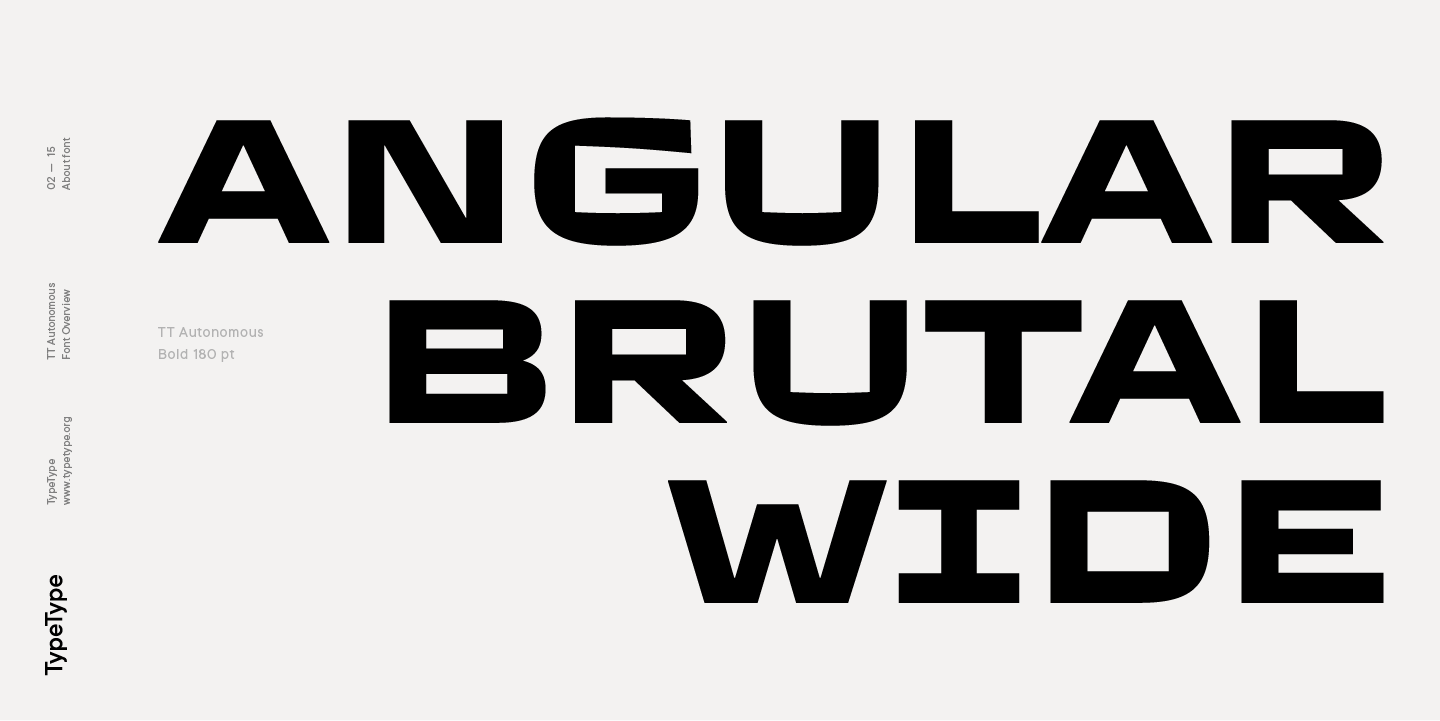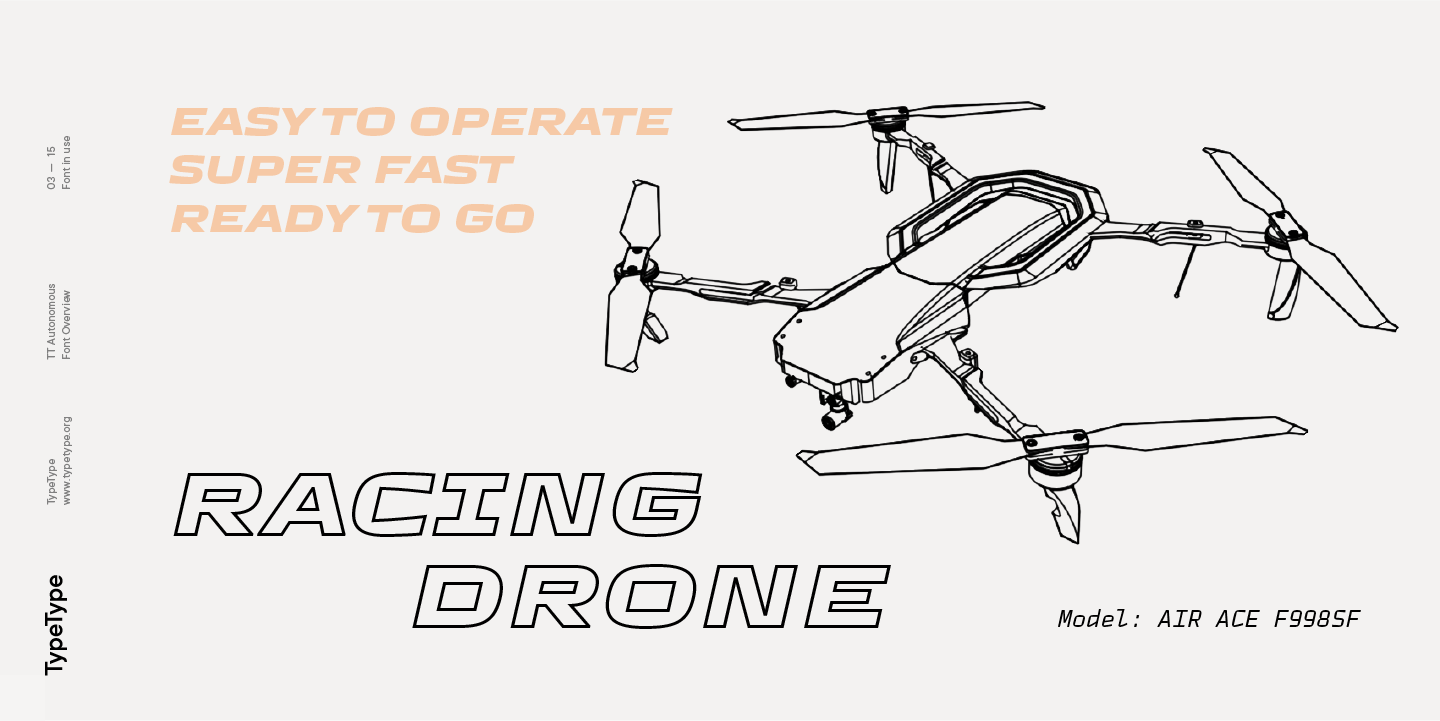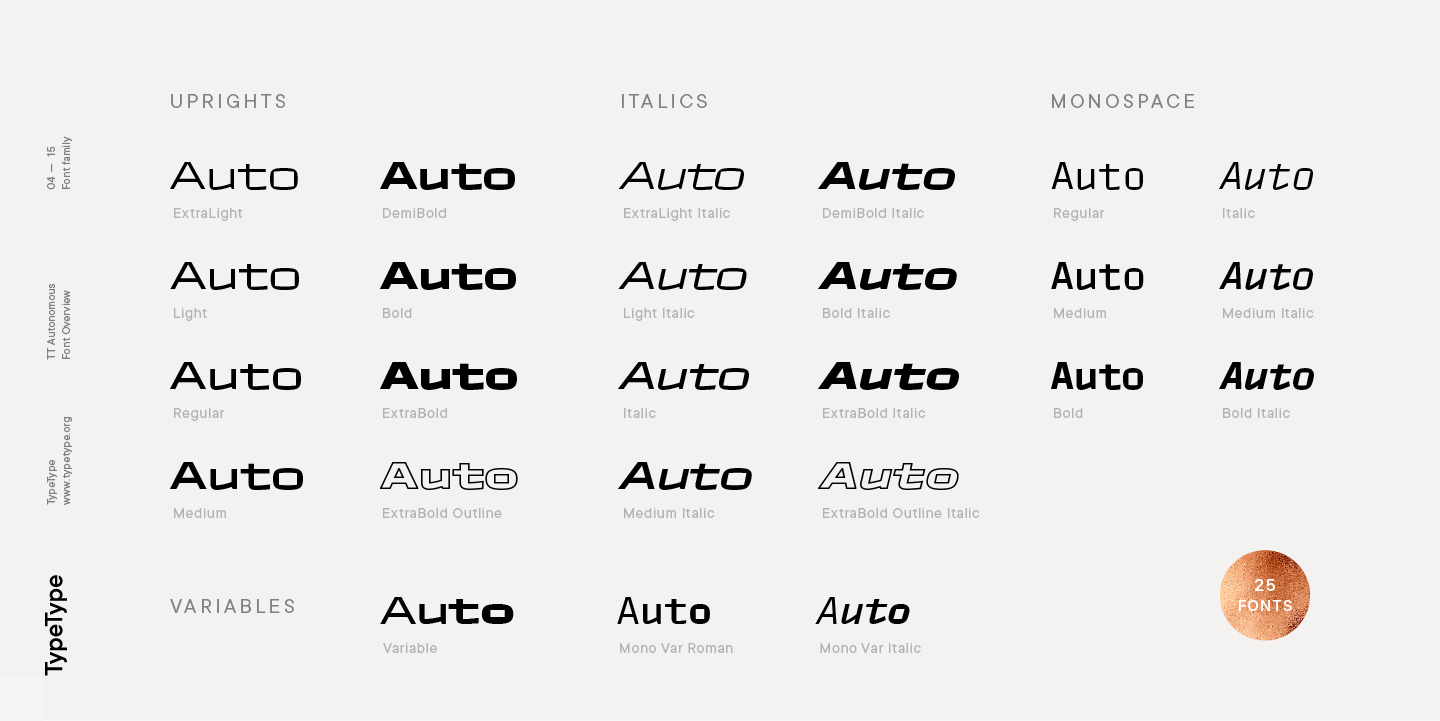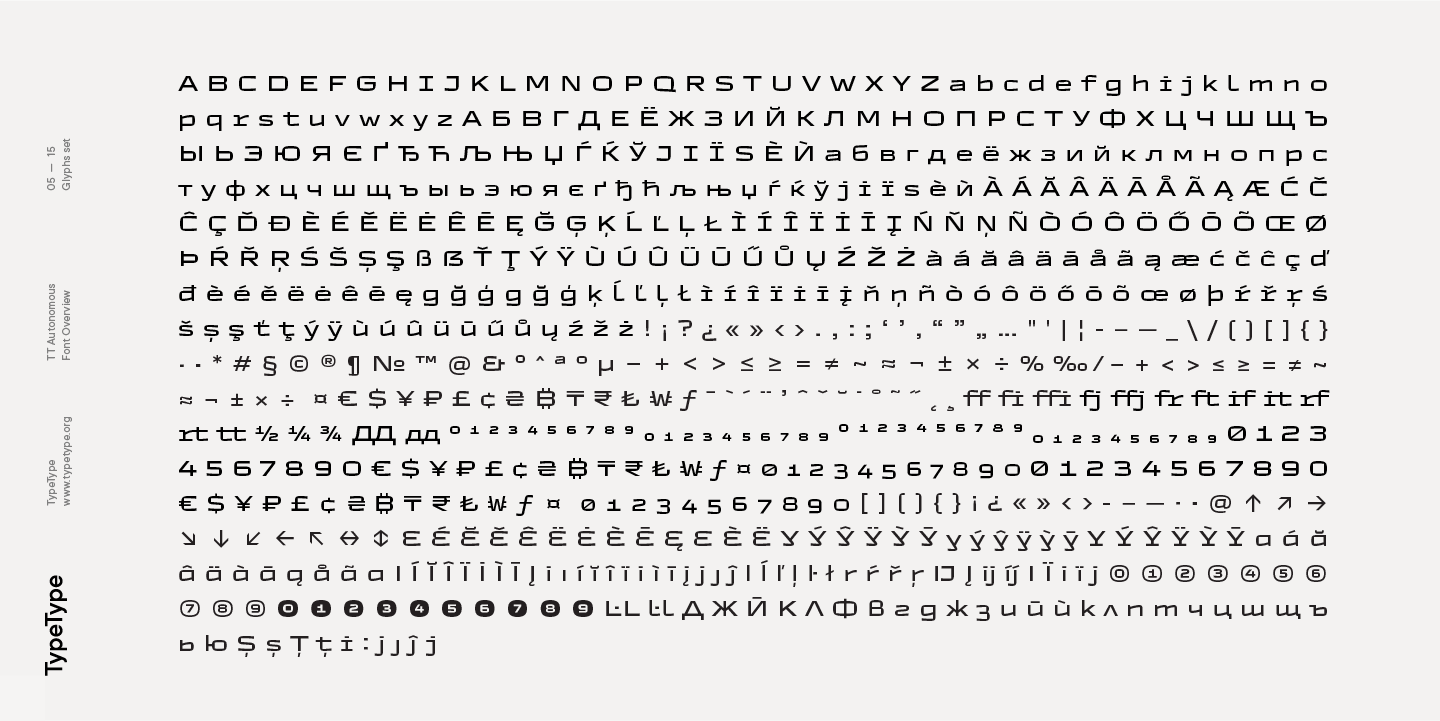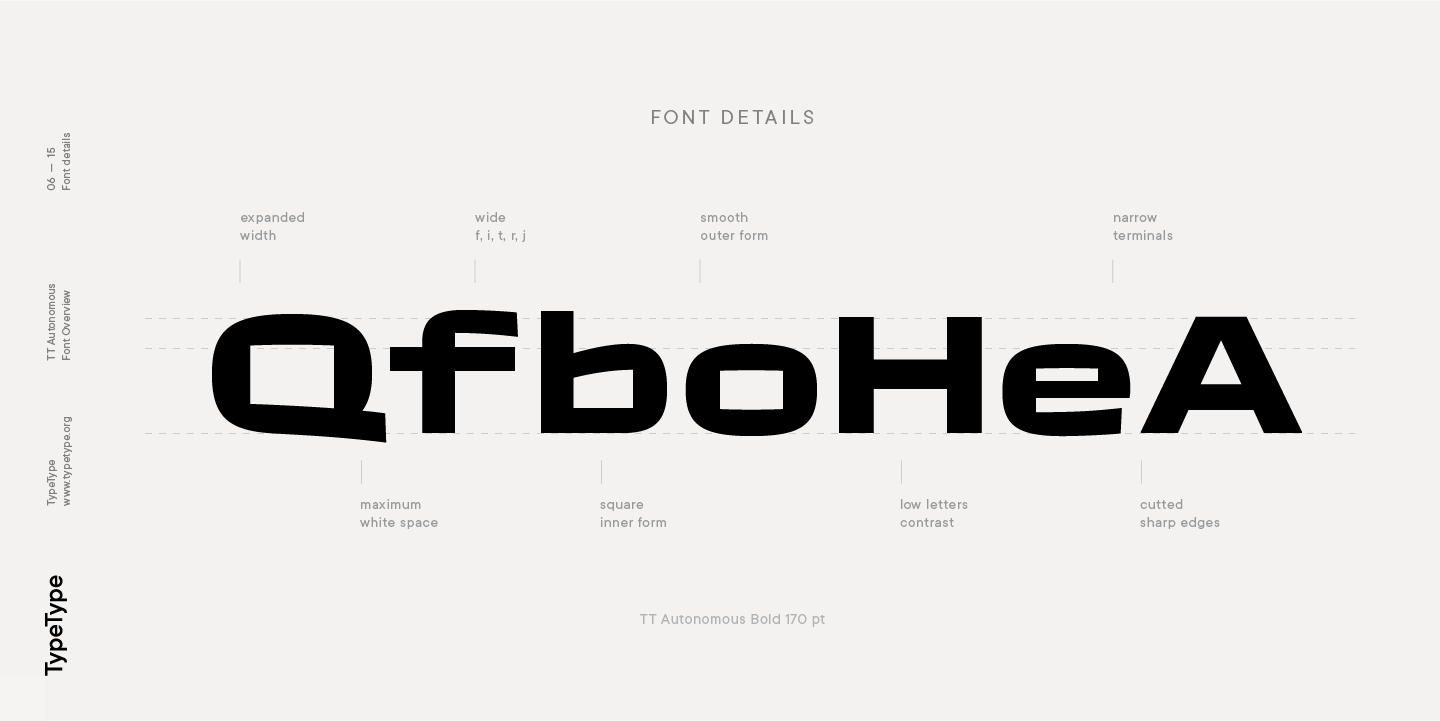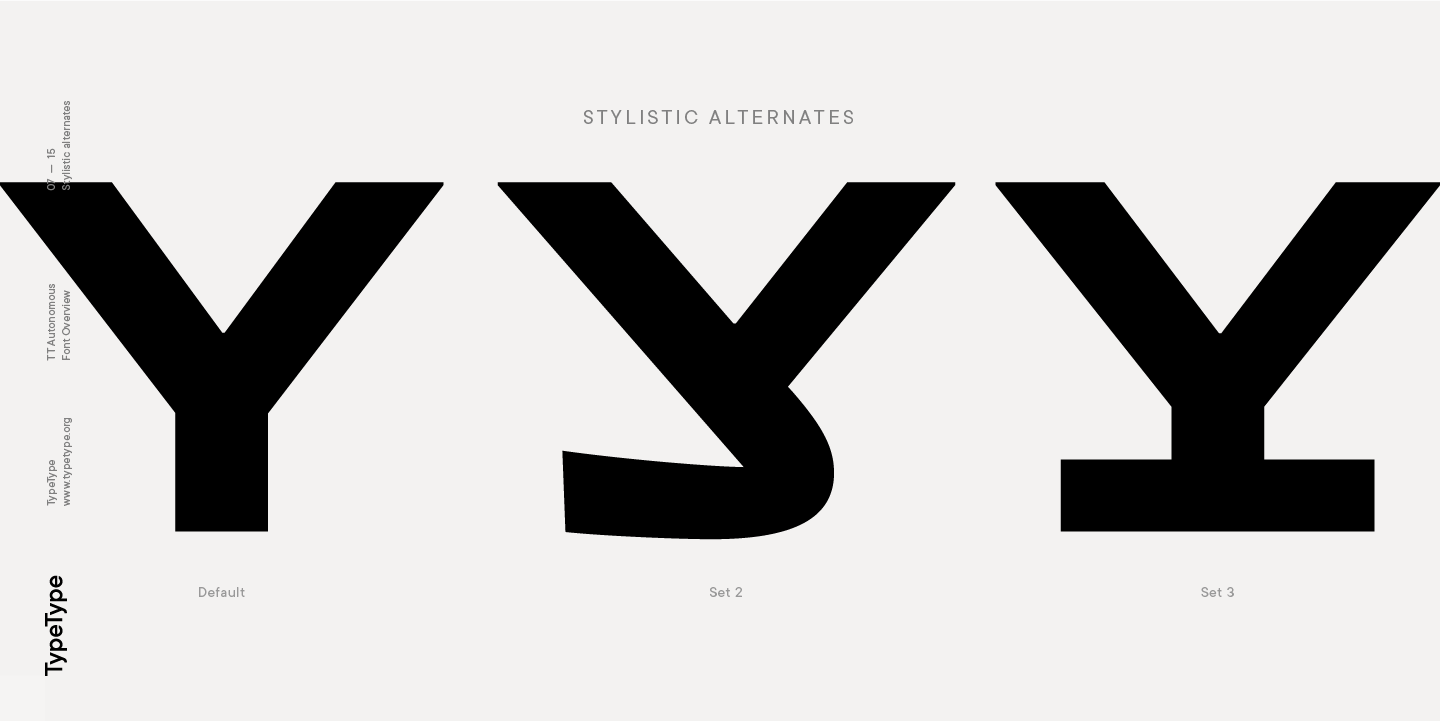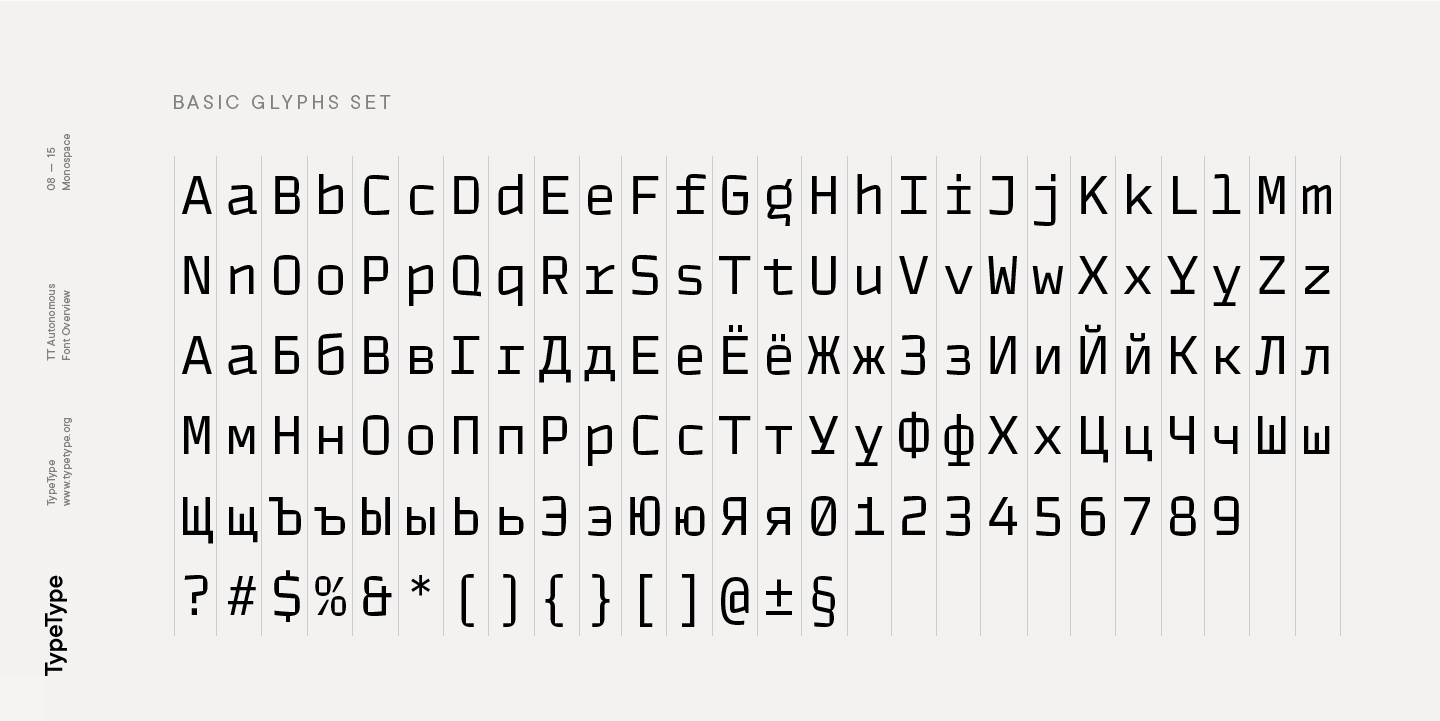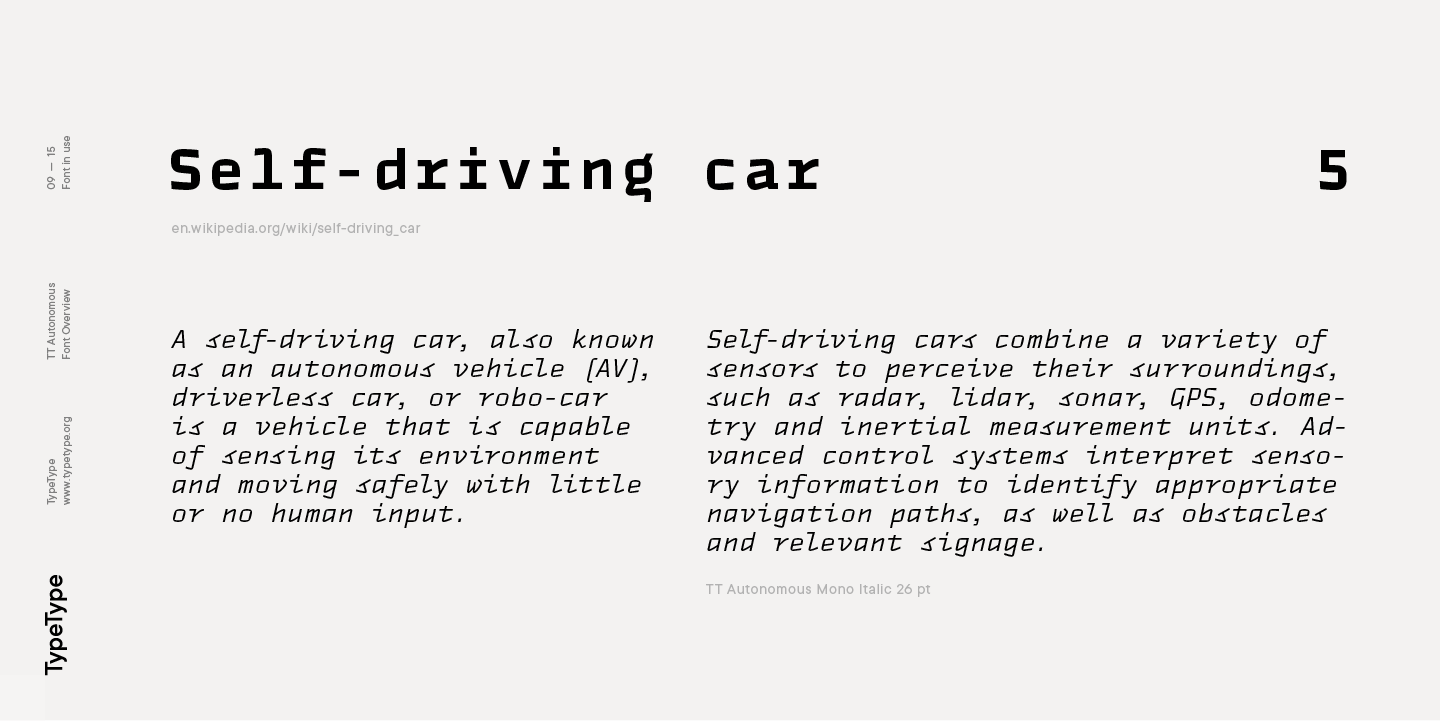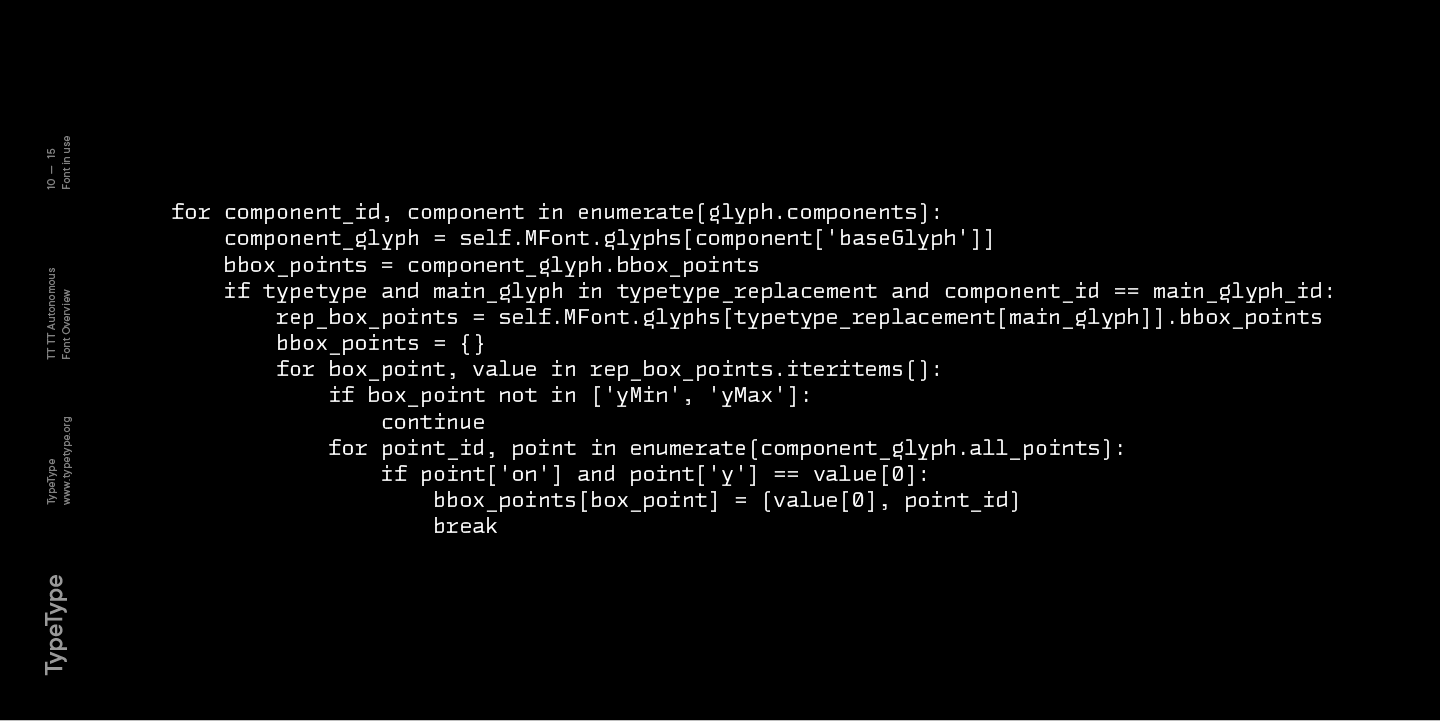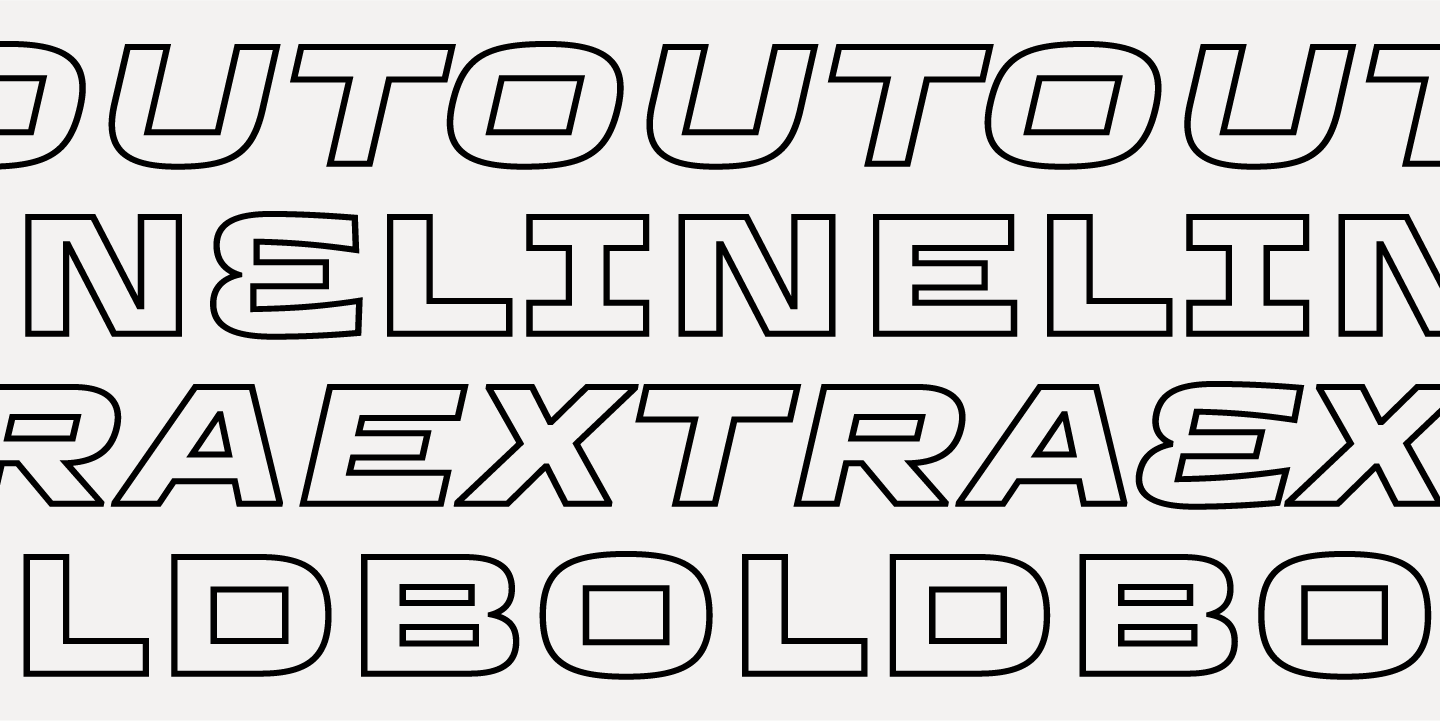
TT Autonomous
TT Autonomous is a bold, technological squared sans serif with industrial strength. It includes a monospaced variant optimized for coding environments.
Modern brutal technological Sans Serif
The idea was born in Amsterdam when one of our colleagues took the official electric taxi at the Schiphol airport. At the moment we were thinking about creating a new wide sans-serif, and an interesting question emerged during the trip: what font would be associated with autonomous electric transport. Then we thought it would also be nice to expand this theme visually. The basic visual characteristic of the typeface is the noticeable squareness of the characters and angular internal space.
TT Autonomous has variable versions for boththe basic and the monospaced subfamilies.
About font family TT Autonomous
The idea was born in Amsterdam when one of our colleagues took the official electric taxi at the Schiphol airport. At the moment we were thinking about creating a new wide sans serif, and an interesting question emerged during the trip: what font would be associated with autonomous electric transport. Then we thought it would also be nice to expand this theme visually.